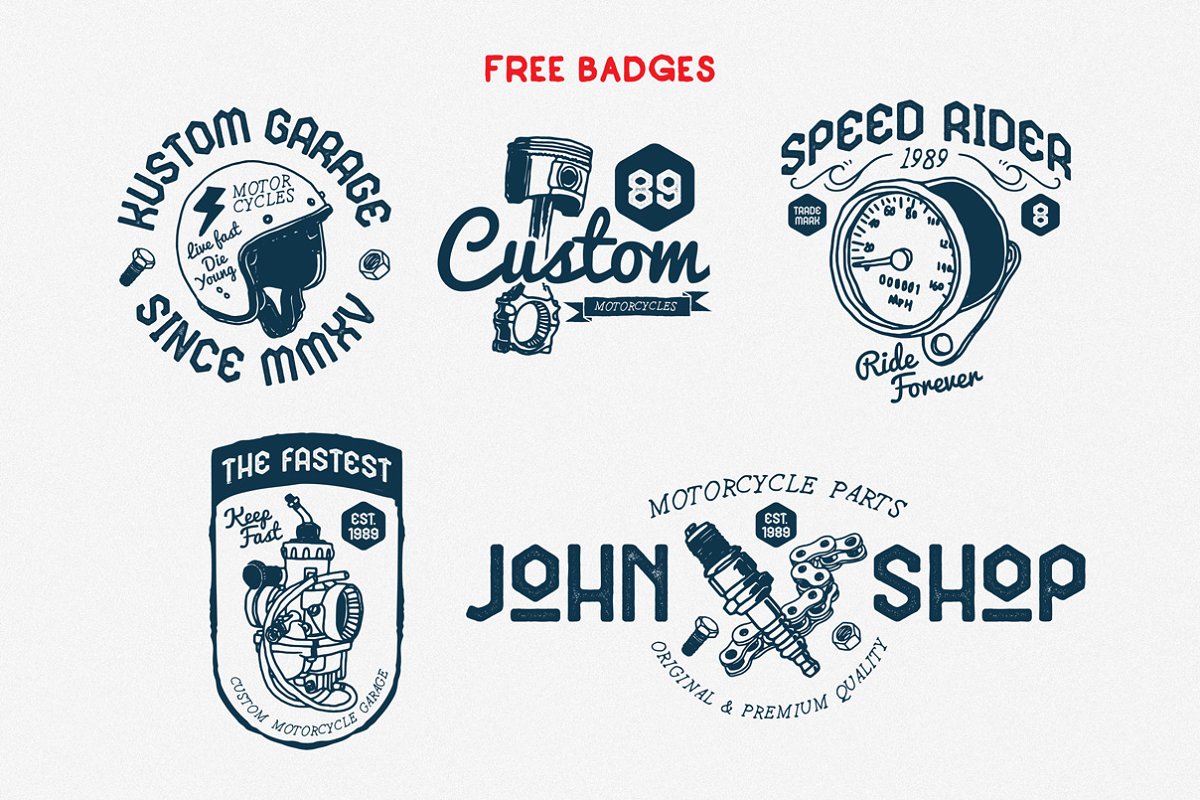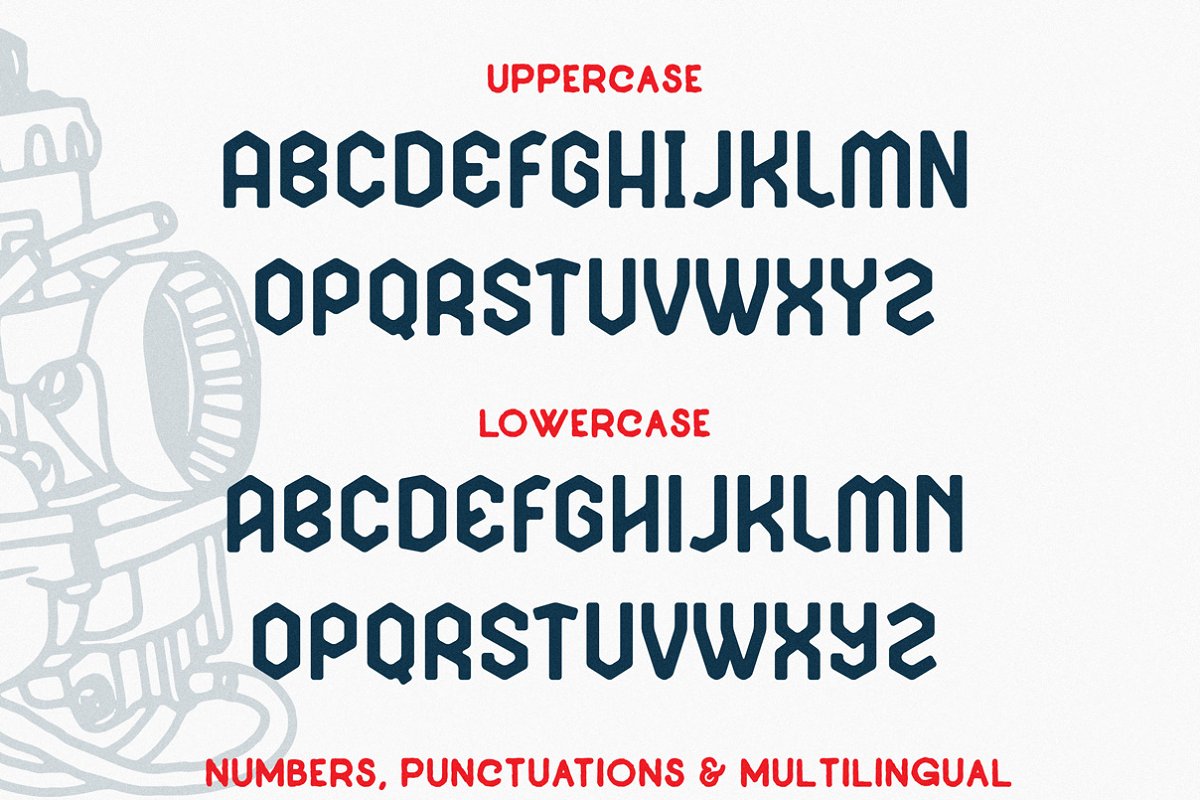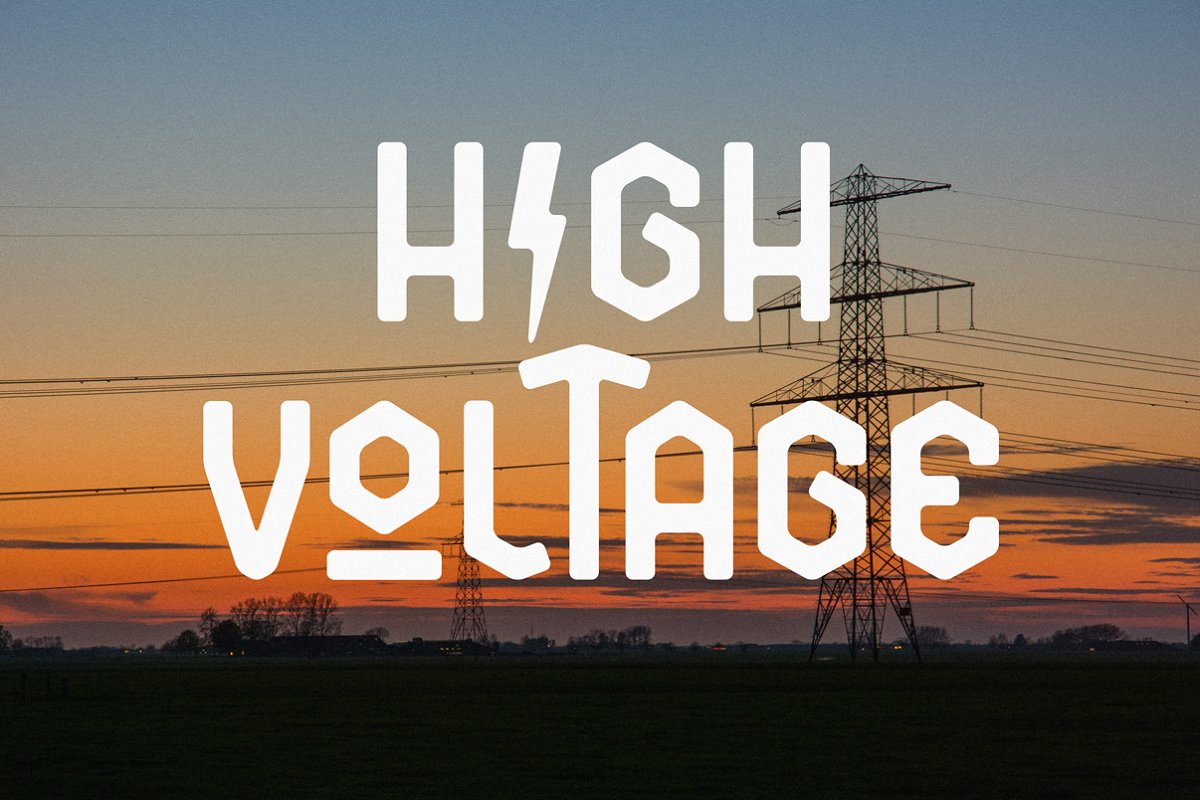
About the BROSTER BONUS Font
Introducing, , , BROSTER is modern vintage typefaces inspired from the basic shape of the nut, bolt, and vintage mechanical toy (Robot) packaging, It comes with a complete set of :UppercaseLowercaseNumbersPunctuationsMultilingual SupportOpentype FeaturesPerfect for poster, t-shirt graphics, typography art, apparel, labels, badges, Logo design, packaging, labels, and inspirational quotes